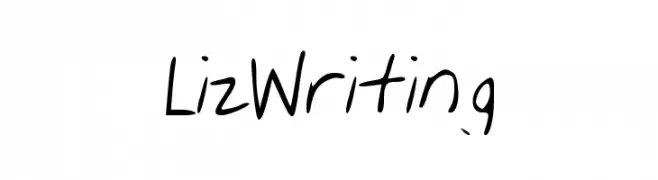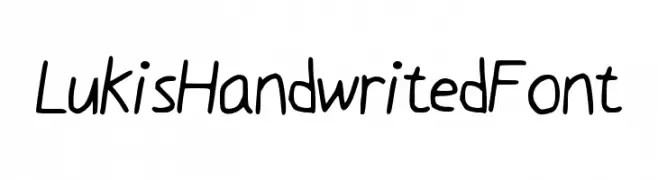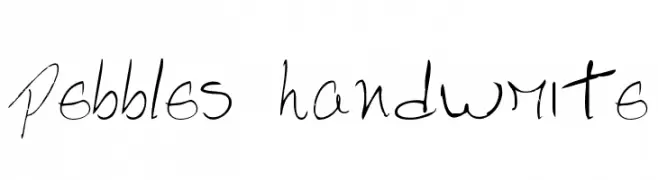
( LukiPukii )
A casual, handwritten-style font with rounded, consistent strokes.
( MaximDude's Fonts - maximdude.deviantart.com )
A playful, handwritten-style font with irregular, whimsical strokes.
( MaximDude's Fonts - maximdude.deviantart.com )
A playful, informal handwritten font with uneven letterforms.
( Nikukurin - nikukurin.deviantart.com/ )
A casual, handwritten font with smooth, slightly slanted strokes.
( Paul Grosse - grosse.is-a-geek.com/paul/ttf01.htm )
A casual, handwritten font with a natural, flowing style.
( Paul Grosse - grosse.is-a-geek.com/paul/ttf01.htm )
A classic monospaced typewriter font with bold, clear characters and slight serifs.
( Pebbles handwrite )
A playful and organic handwritten font with fluid, irregular strokes.
( Phranzysko's Handwriting Fonts )
A playful, handwritten font with a dynamic and casual style.
( RamonaMagdolna )
A playful, casual handwritten font with irregular strokes and an organic flow.
( SamOnt )
A playful handwritten font with uneven strokes and a casual style.